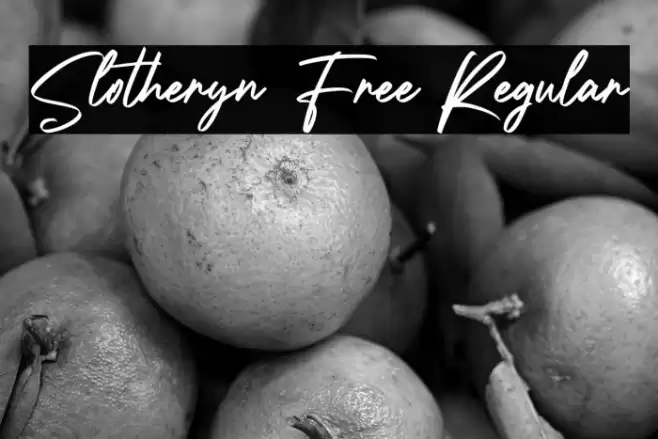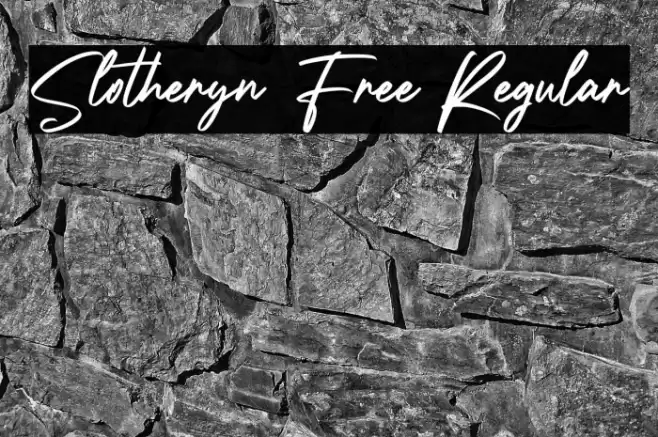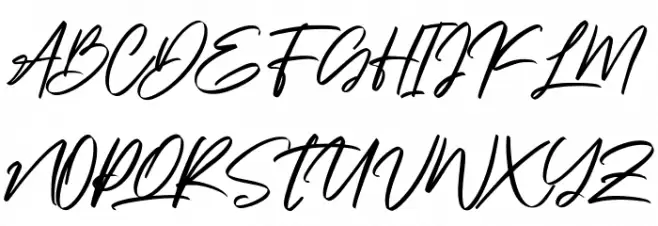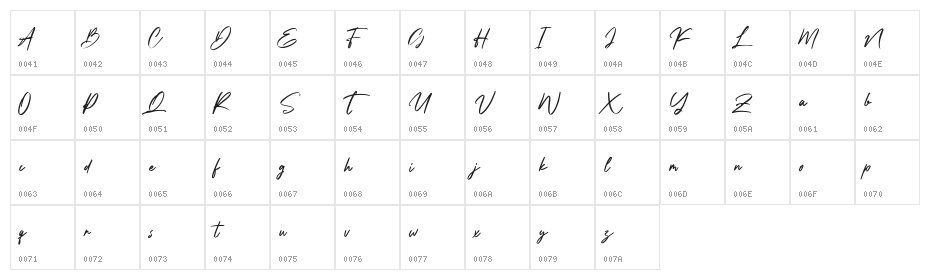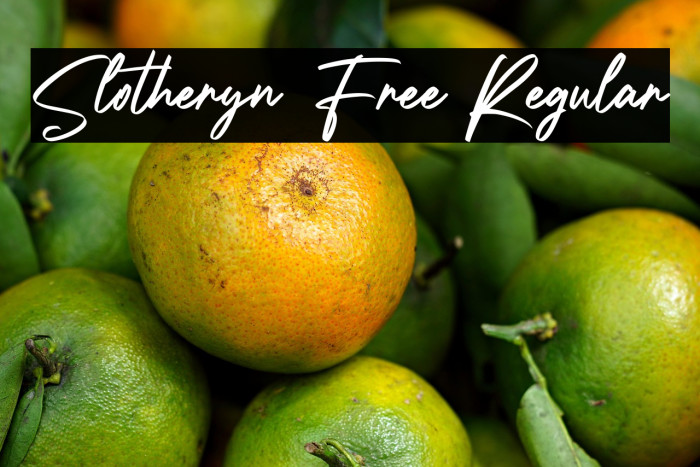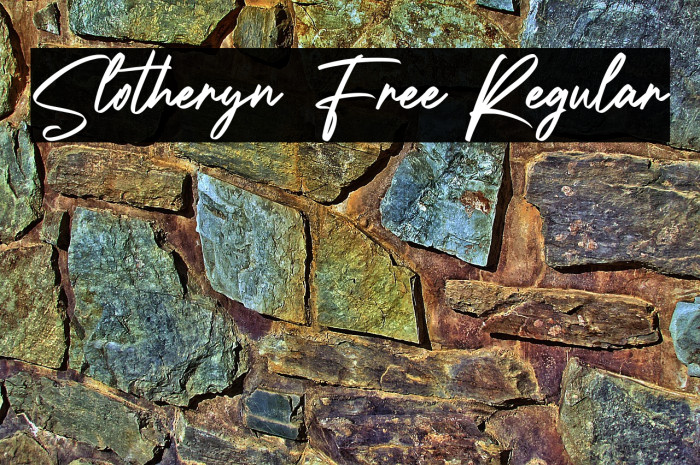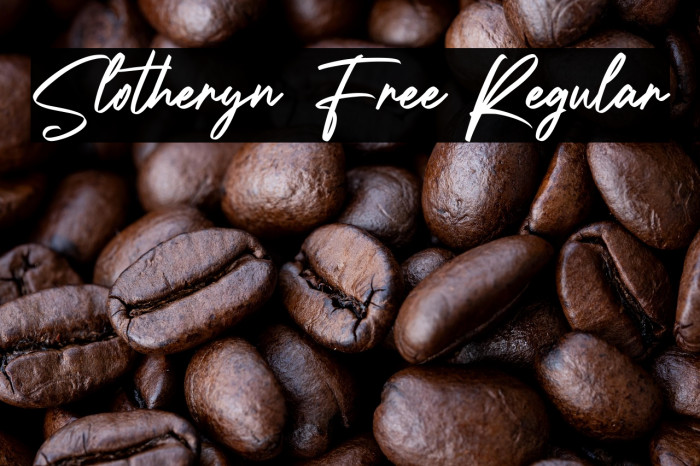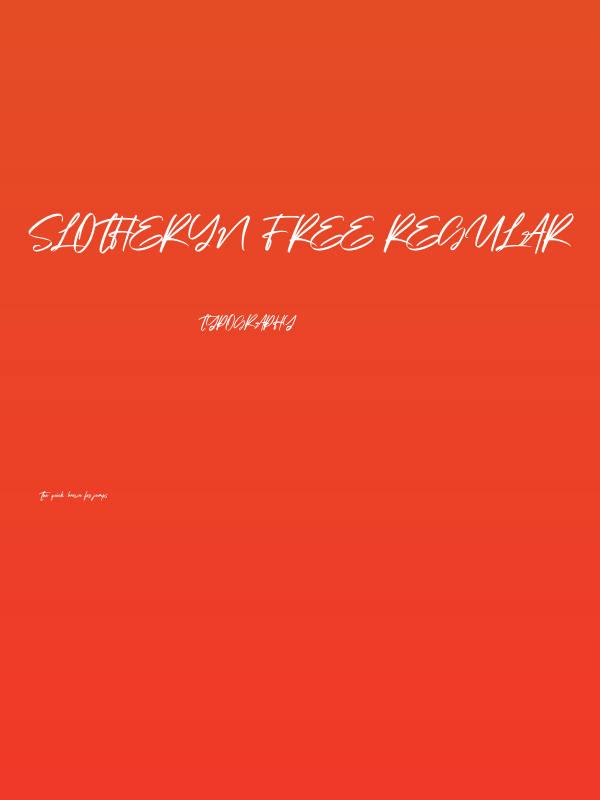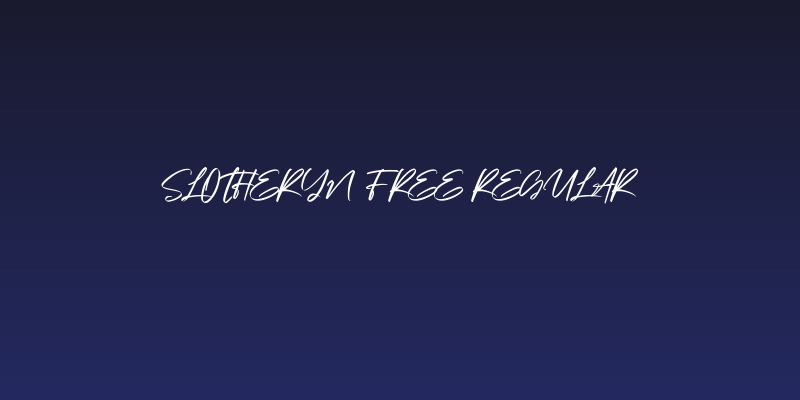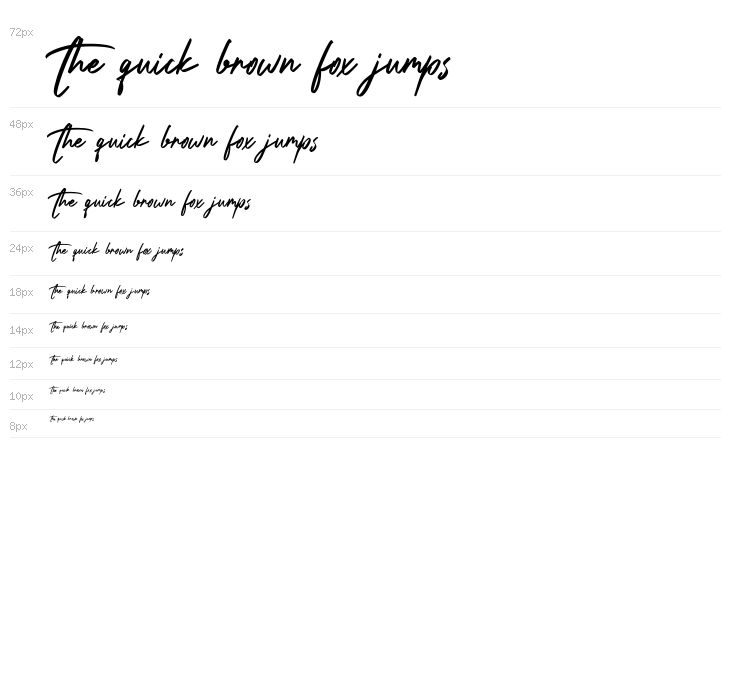
Slotheryn Free Regular Font
Slotheryn Free Regular Description
This font exhibits a dynamic and fluid script style, characterized by its elegant and flowing letterforms. The strokes are smooth and connected, giving it a handwritten appearance that is both stylish and legible. The uppercase letters are bold and prominent, while the lowercase letters maintain a consistent flow, enhancing readability. The font's overall aesthetic is modern and chic, making it suitable for a variety of creative applications. Its unique flair is evident in the distinctive loops and curves, adding a touch of sophistication to any design.
A dynamic and fluid script font with elegant, flowing letterforms from Regular fonts.
- Proposed Projects: Ideal for wedding invitations, branding, social media graphics, and product packaging.
- Use Case: Logos, Headlines, Invitations